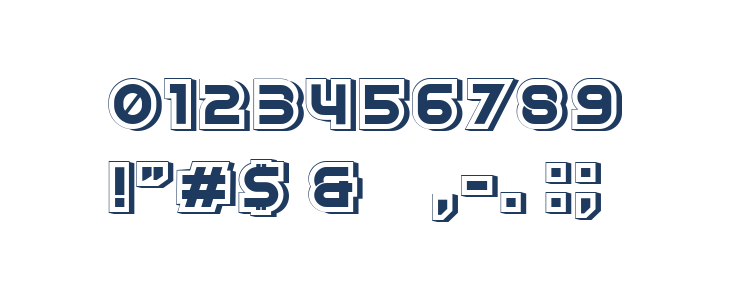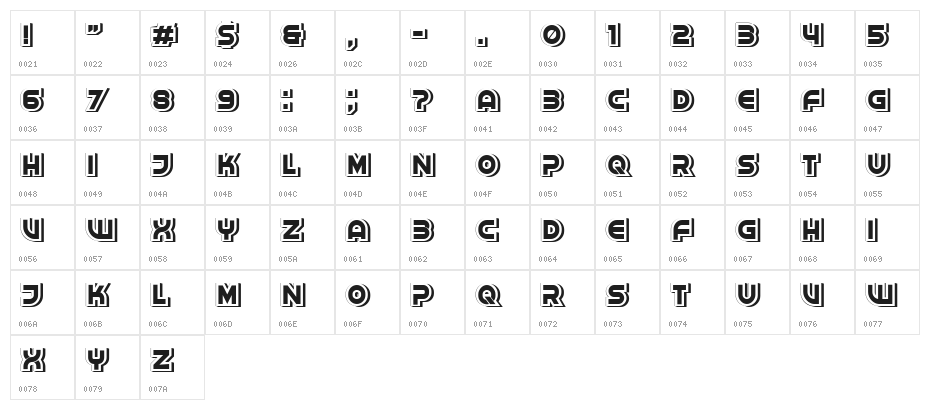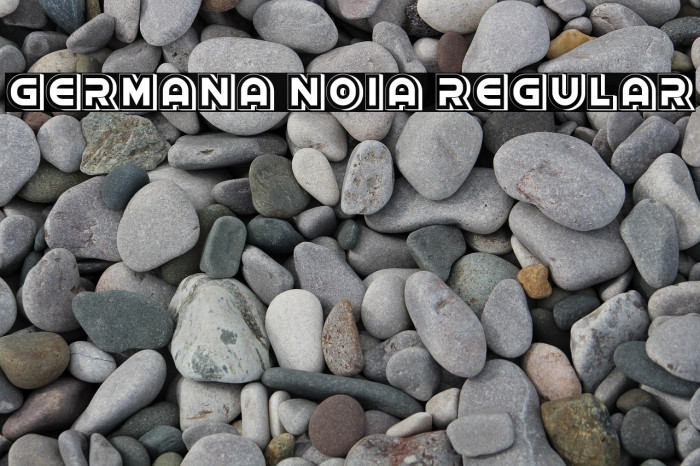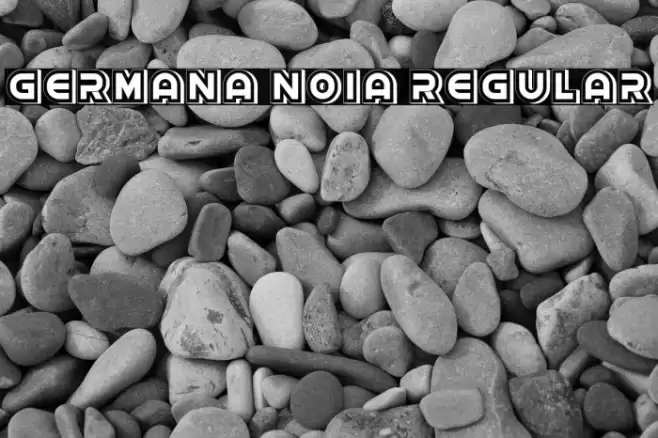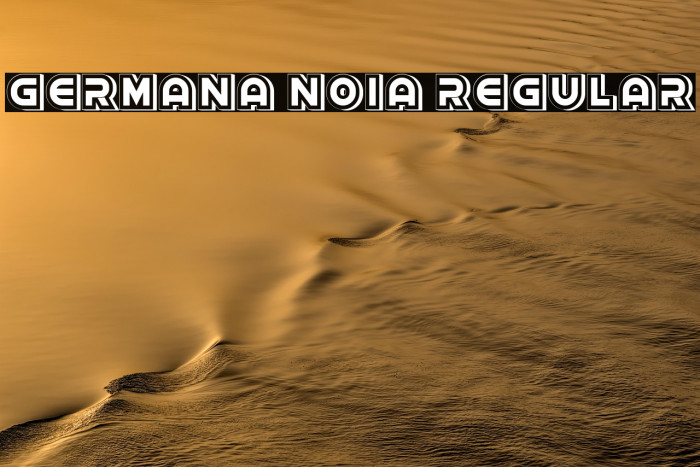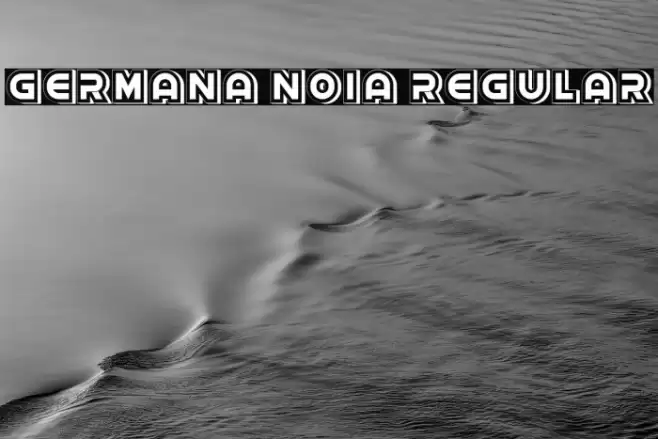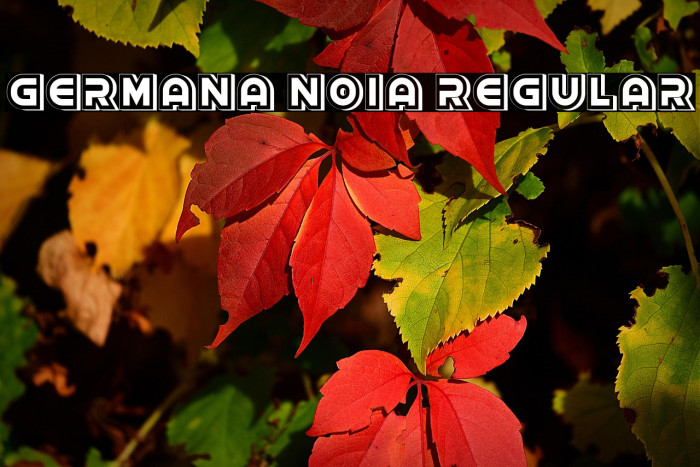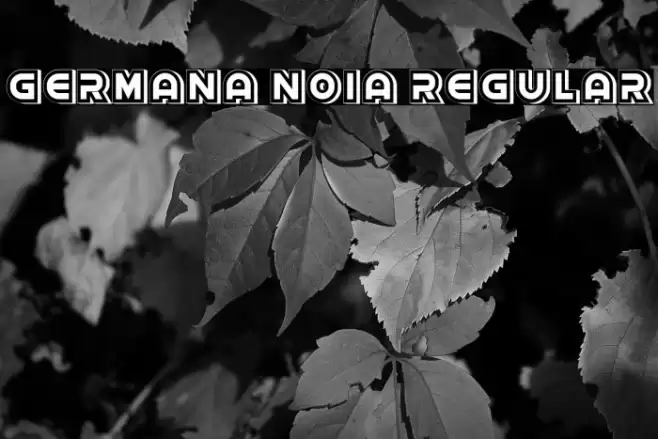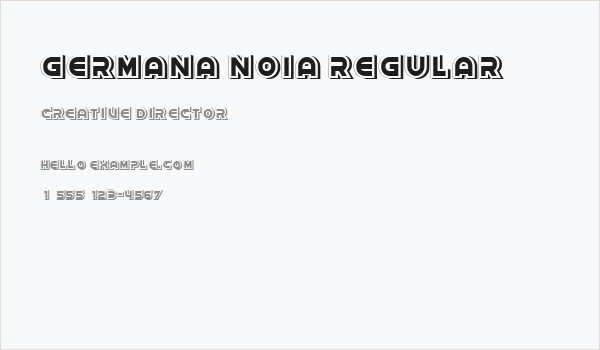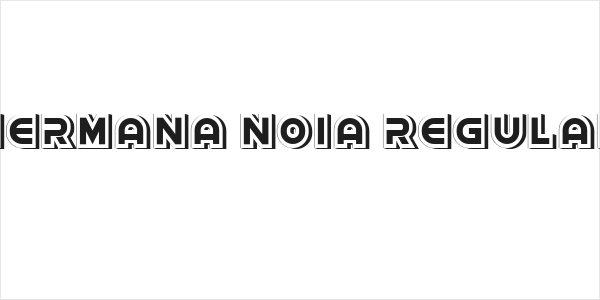
Germana Noia Regular Font
Germana Noia Regular Description
This font features a bold, geometric design with a distinct three-dimensional effect created by its layered outline. The uppercase letters are crafted with sharp angles and clean lines, giving a modern and futuristic appearance. The numbers and special characters follow the same stylistic approach, ensuring consistency across all glyphs. The font's structure is solid and impactful, making it ideal for attention-grabbing headlines or titles. Its unique style is both decorative and functional, offering versatility for various design projects.
| Proposed Projects | Ideal for posters, logos, video game graphics, and any project requiring a modern, eye-catching typeface. |